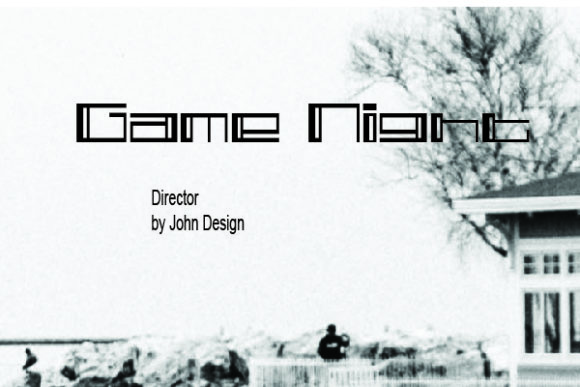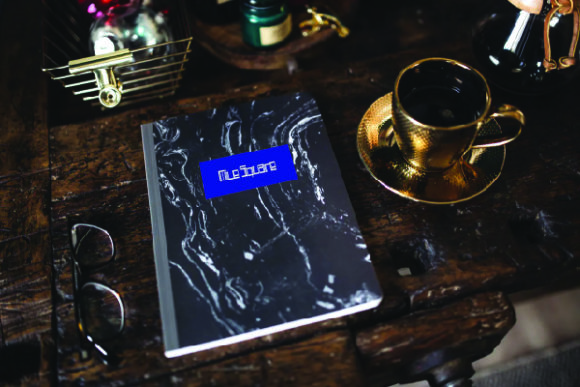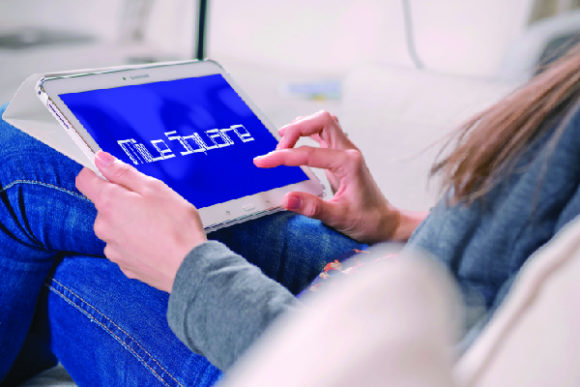
Introduction to Mile Square Font
Mile Square is a unique display font with a futuristic look.
It features a geometric style and can be used for various purposes such as headings, logos, invitations, t-shirt designs, greeting cards, posters, labels, book covers, brochures and much more .
Mile Square Font offers exceptional quality and versatility, making it a valuable addition to your design toolkit. Whether you’re creating for personal projects or commercial use, Mile Square Font delivers professional results.